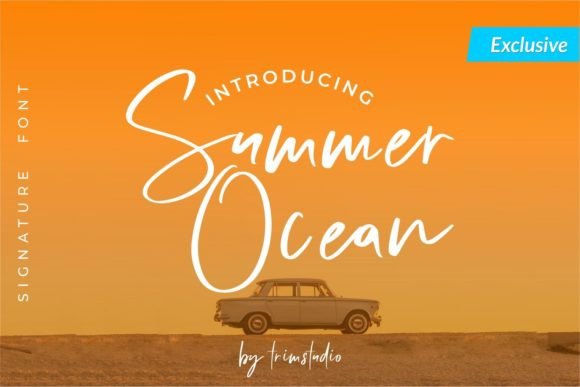
Introducing Summer Ocean Font, the ultimate script font that will transport you to the beach with its flowing and carefree style. Created by Trim Studio, this font captures the essence of the ocean and brings a touch of its breezy energy to your designs.
With its handwritten script style and mix of hand-drawn elements, Summer Ocean Font exudes a personal and natural feel. Each stroke of the letters reflects the free-spirited nature of the beach, making it a perfect choice for those seeking a touch of summery charm in their projects.
Whether you're designing book covers, creating wedding invitations, or working on vacation-themed designs, Summer Ocean Font is the ideal companion. Its versatility allows it to effortlessly enhance any project, adding a unique and captivating element that will instantly catch the eye.
Imagine the feeling of warm sand between your toes and the sound of waves crashing in the distance as you work with this font. It will transport you to a beachside paradise where creativity flows freely and inspiration abounds.
The Best Fonts For Book Covers are those that evoke emotions and capture the essence of the story. Summer Ocean Font does exactly that. Its flowing script and relaxed style will entice readers and draw them into the captivating world of your book.
But it doesn't stop there. Summer Ocean Font is also perfect for wedding invitations, as it adds a touch of elegance and romance to any design. Let your guests feel the love and excitement of your special day through the exquisite beauty of this font.
Not only is Summer Ocean Font visually stunning, but it's also incredibly easy to use. Its compatibility with various design software ensures a seamless integration into your creative process. Say goodbye to hours of struggling with fonts that don't quite capture the essence you're looking for.
Get ready to make a splash with Summer Ocean Font. Embrace the carefree spirit of the beach and infuse your designs with a touch of summery charm. Your projects will come alive as this font takes you on a journey to the sun-kissed shores of creativity.